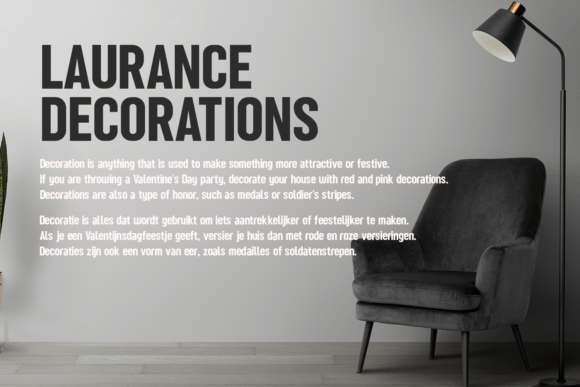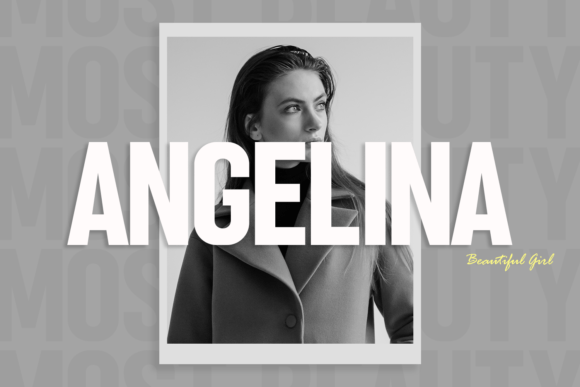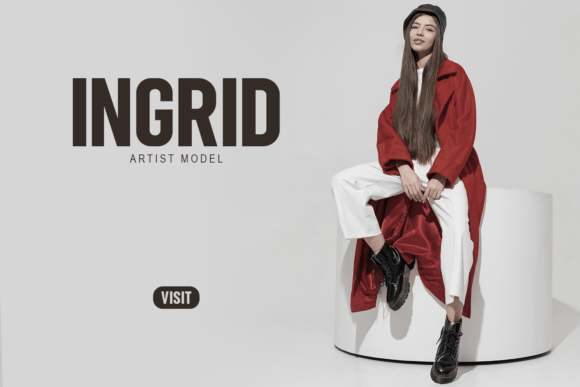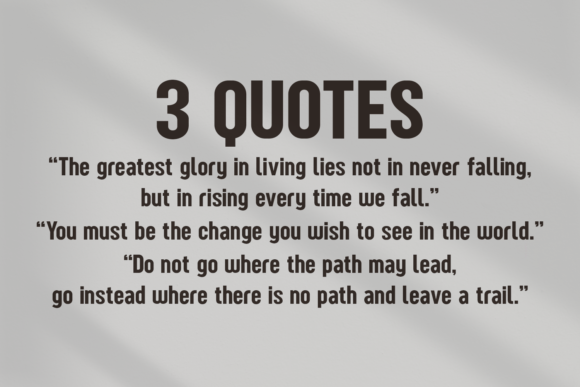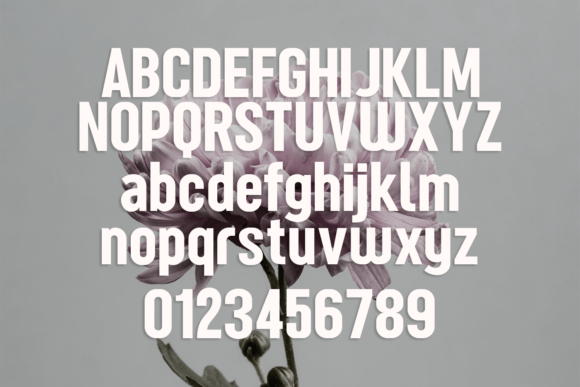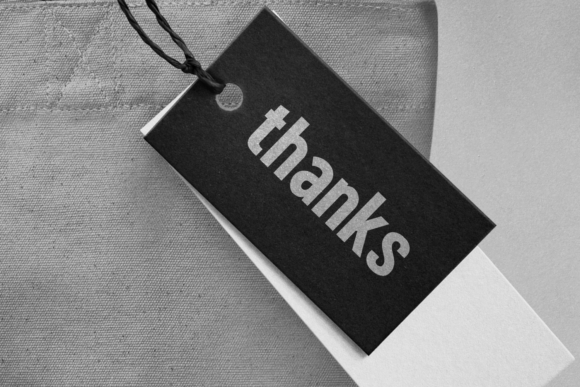
Timeless Elegance: Unlocking the Power of the Grossura Font
You’ve poured your heart into a design project, and as you gaze at the blank canvas, you know exactly what’s missing: a touch of sophistication. The perfect font can elevate your work from good to great, and that’s where the Grossura Font comes in – a masterfully crafted sans-serif typeface that exudes polished charm.
Designed to make a statement, the Grossura Font is perfect for logos, titles, branding, magazine covers, product packaging, and invitations. Its clean lines and smooth curves give it a timeless quality that’s hard to resist. For designers, the Grossura Font is a valuable asset, offering a versatile and elegant solution for a wide range of creative projects.
Grossura Font Key Features
- Font Family: Grossura is a sans-serif font family designed for digital use.
- Character Set: Grossura Font supports a wide range of languages, including Latin, Cyrillic, and Greek alphabets.
- Unique Characteristics: Grossura Font features a clean and modern design, with a distinctive rounded edge and a subtle rounded corner, making it ideal for digital interfaces, signage, and wayfinding systems.
Grossura Font Review
Overall, I’m impressed with the Grossura Font, but it’s not without its quirks.
- The font is bold and striking, perfect for headings and titles.
- Its modern design makes it suitable for a wide range of applications, from digital interfaces to print materials.
- Grossura is highly legible, even at smaller font sizes, which is a big plus for digital displays.
Limitsations ⚠️
- The font may be too bold for some users, particularly those with visual impairments.
- Its limited character set and font weights may make it less versatile than other fonts.
- Some users may find the font’s modern design too trendy, potentially limiting its long-term use.
Despite these limitations, I believe the Grossura Font is a solid choice for designers looking for a bold, modern font. With careful consideration of its limitations, it can be a valuable addition to any design project.
Tips for Getting the Most Out of Grossura Font
Use the Grossura font for titles, headings, and other prominent text elements to create a bold and eye-catching visual effect.
Combine the Grossura font with other fonts to create a unique and stylish typography.
Experiment with different font sizes, colors, and styles to find the perfect look for your design.
Use the Grossura font for:
Branding and logos
Advertising
Alternatives to Grossura Font for Designers
Montserrat is a sans-serif font designed by Julieta Ulanovsky. It’s a great alternative to Grossura Font for titles, headings, and body text. Montserrat has a similar industrial feel, but with a more modern and clean design. It’s perfect for use in digital products, logos, and advertising materials.
Comparison: Montserrat has a more geometric design, making it more versatile and suitable for a wide range of applications. It’s also more readable at small font sizes.
Open Sans is a clean and modern sans-serif font designed by Steve Matteson. It’s a great alternative to Grossura Font for body text, as it’s highly legible and readable. Open Sans has a more neutral design, making it suitable for use in various contexts, from digital products to print materials.
Comparison: Open Sans is more neutral and less industrial than Grossura Font, making it a better choice for applications where a more subtle design is required.
Lato is a sans-serif font designed by Łukasz Dziedzic. It’s a great alternative to Grossura Font for titles, headings, and body text. Lato has a more elegant and sophisticated design, making it perfect for use in branding, advertising, and editorial materials.